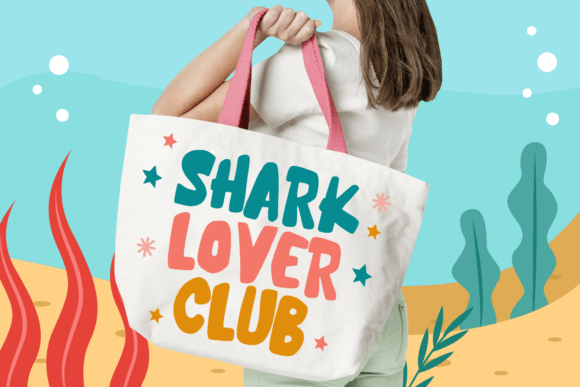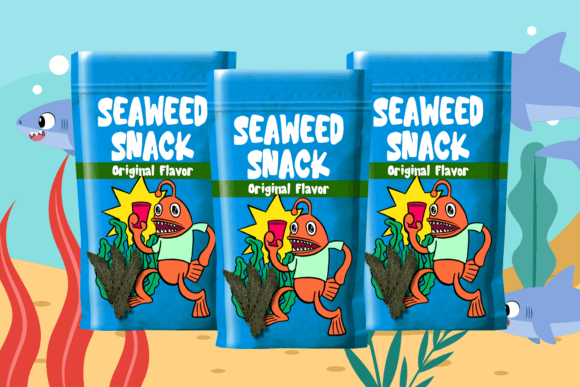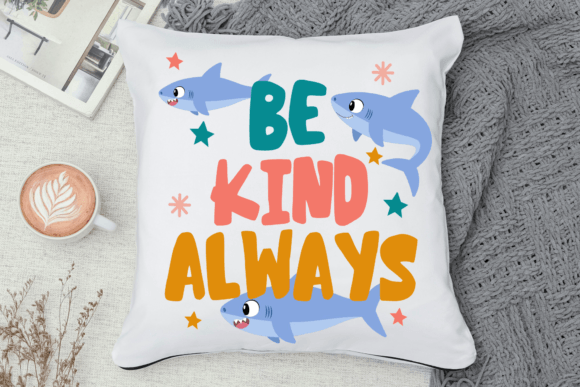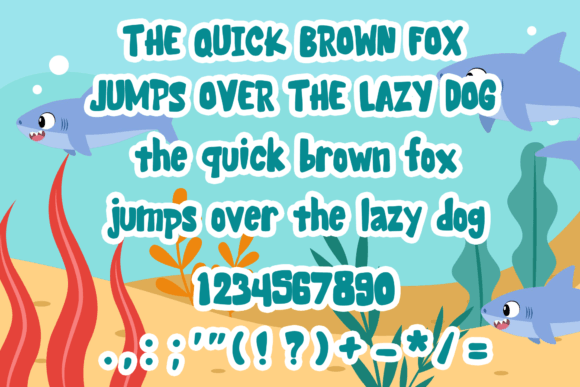
The Cute Shark Font: A Playful Game-Changer for Your Designs
Have you ever been in the middle of a design project, and suddenly, you’re stuck on finding the perfect font? I recall a recent experience where I was working on a fun sticker design project for a kids’ party, and my usual go-to fonts just weren’t cutting it. That’s when I stumbled upon the Cute Shark font, and let me tell you, it was love at first sight! 😍
An Honest Review: What I Love and a Few Quirks
Cute Shark is a display font that’s as cute and playful as its name suggests. Here’s what I love about it:
- ✨ Unique and quirky design: Cute Shark has a distinctive look that sets it apart from more traditional fonts.
- ✅ Highly versatile: This font can be used for a wide range of design projects, from stickers and t-shirt designs to logos, magazine covers, and more.
- 🎉 Easy to read: Despite its playful nature, Cute Shark is surprisingly easy to read, even at smaller sizes.
As with any font, there are a few quirks to be aware of:
- 🤔 Limited use for body text: Cute Shark is best suited for display purposes, as it may not be the most readable font for longer blocks of text.
- ⚠️ Some glyphs may require manual adjustment: Depending on your design software, you may need to manually adjust certain glyphs to get the best results.
- Take advantage of OpenType features, such as glyphs and stylistic alternates, to add more variety to your designs.
The Story Behind Cute Shark
Cute Shark was designed with the goal of creating a fun, versatile font that would bring a smile to users’ faces. Inspired by the playful nature of sharks and the world of cartoons, this font is perfect for designers who want to add a touch of whimsy to their work.
| What type of designs is Cute Shark best suited for? | Cute Shark is ideal for display purposes, such as stickers, t-shirt designs, logos, magazine covers, and more. |
| Does Cute Shark support OpenType features? | Yes, Cute Shark supports OpenType features, including glyphs and stylistic alternates. |